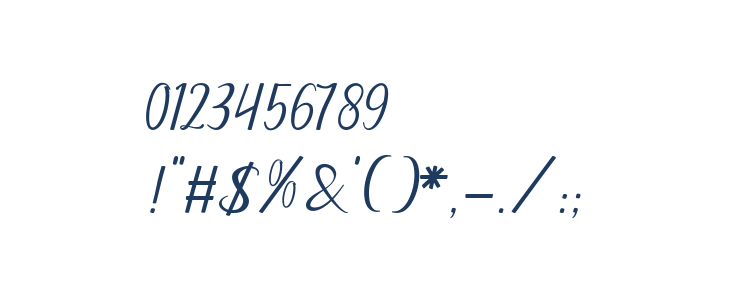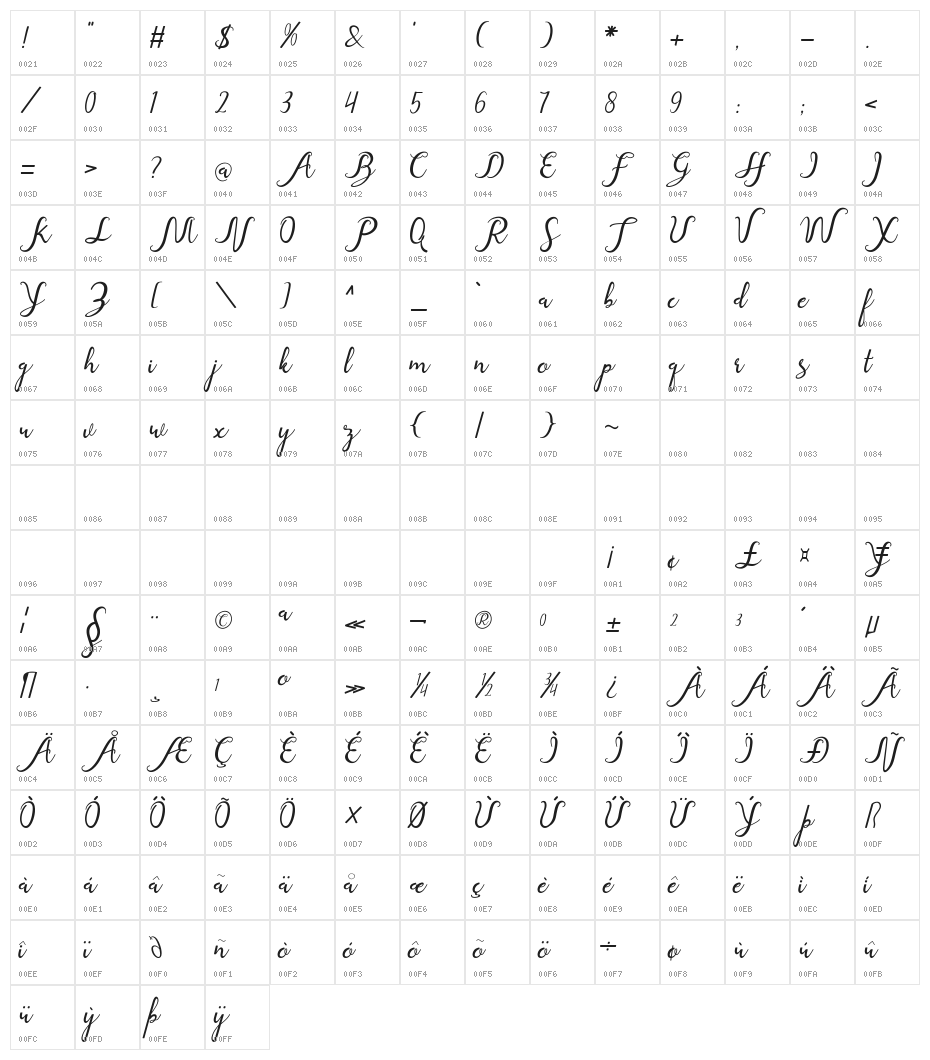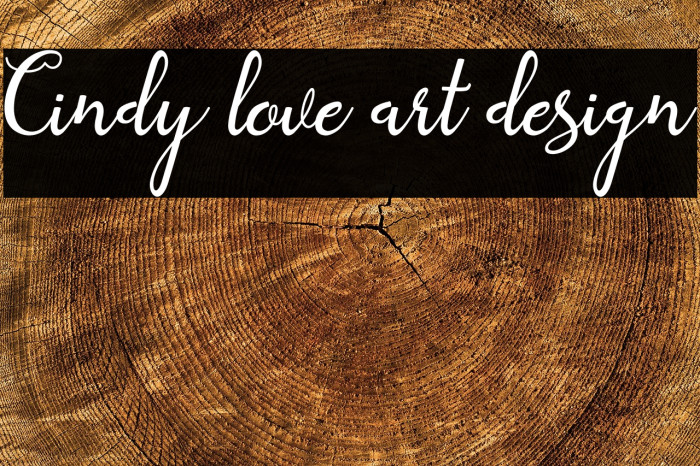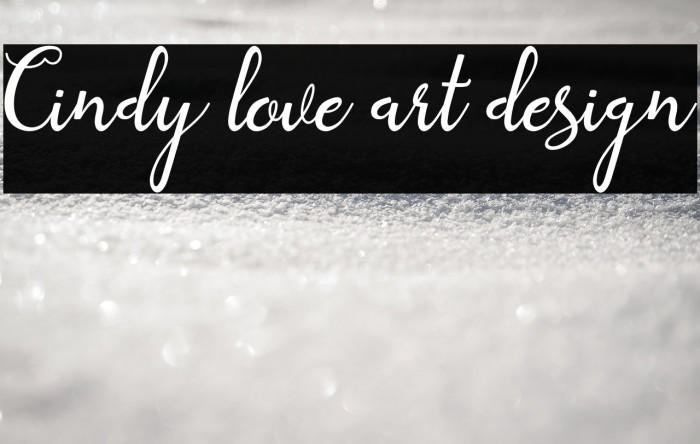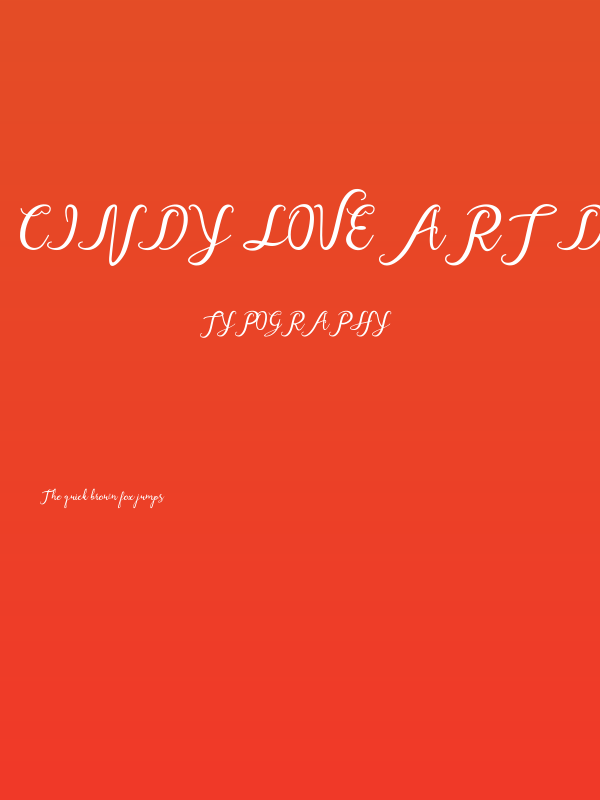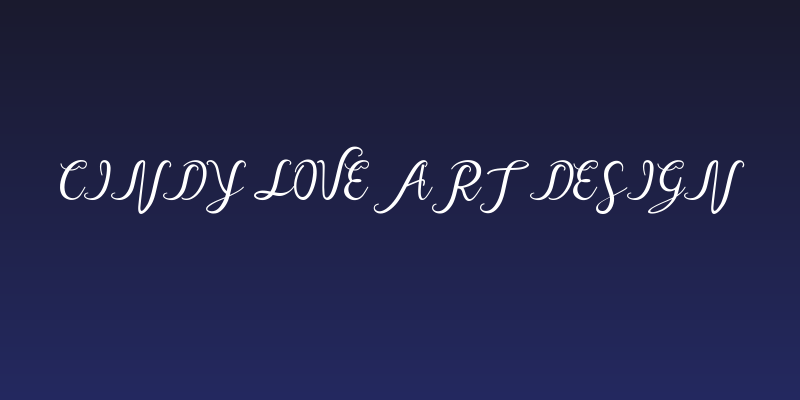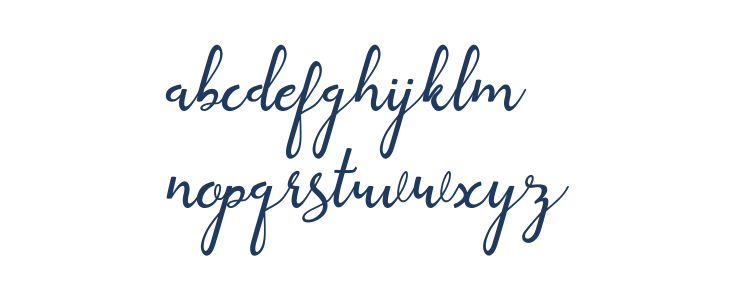
Cindy love art design Font
Cindy love art design Description
This font features an elegant and flowing script style, characterized by its smooth, cursive lines and graceful curves. The uppercase letters are distinct with their sweeping ascenders and descenders, creating a sense of movement and fluidity. The lowercase letters maintain a consistent style, with a slight slant that enhances the handwritten feel. Numbers and special characters are designed to match the overall aesthetic, ensuring a cohesive look across all text. This font is perfect for adding a personal touch to any design, with its sophisticated yet approachable appearance.
Overall StyleElegant
Use CaseLogos, Invitations, Decorative text
Proposed ProjectsIdeal for wedding invitations, greeting cards, branding, and logo design.